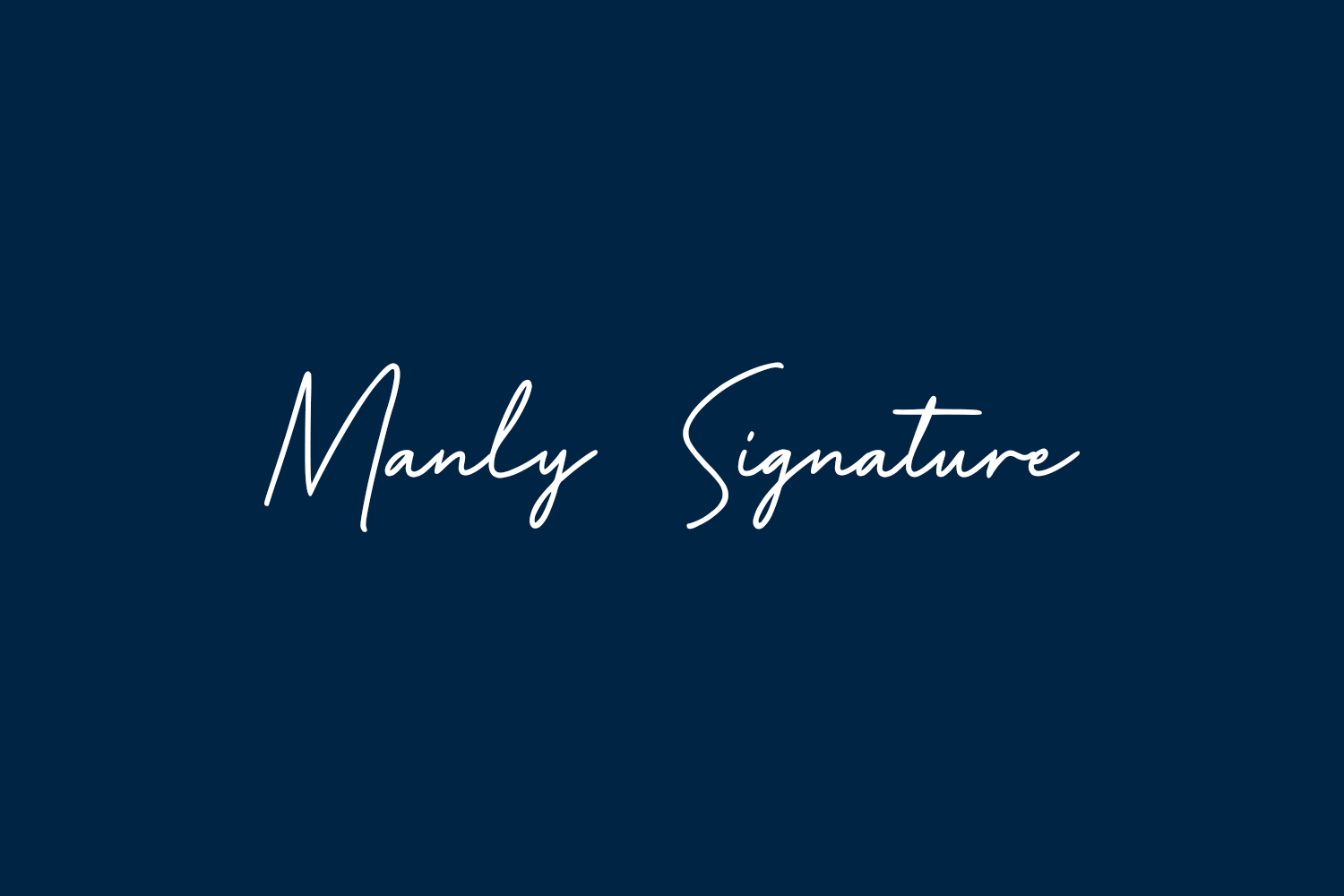
Manly Signature Free Font is a chic, refined script font that emanates sophistication and elegance. Its stylish alternates and ligatures make this font the perfect match for any project.
Designed by Allouse Studio